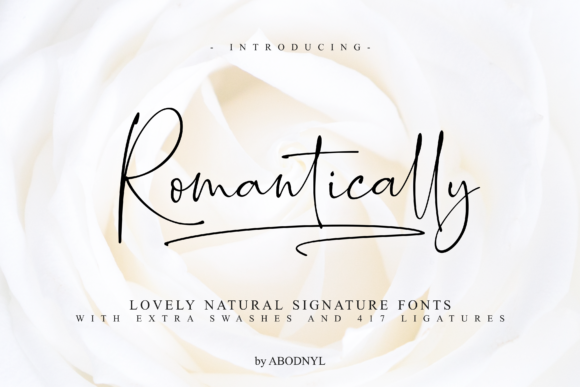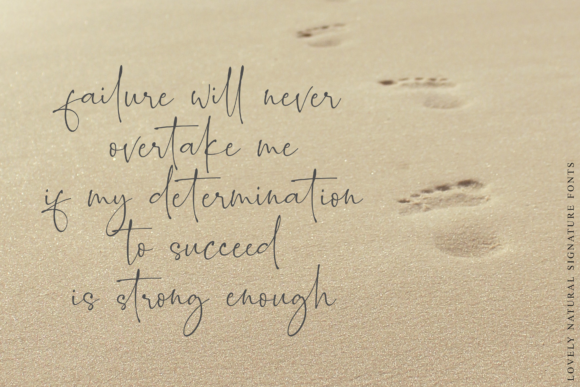
About Romantically Font
The Romantically is a lovely signature script. It has a natural writing style and will add a classy touch to your designs. The two included styles can be combined perfectly and will add an unique touch to your designs.
It’s perfect for branding, photography, invitations, quotes, watermarks, advertisements, product designs, labels, and much more!